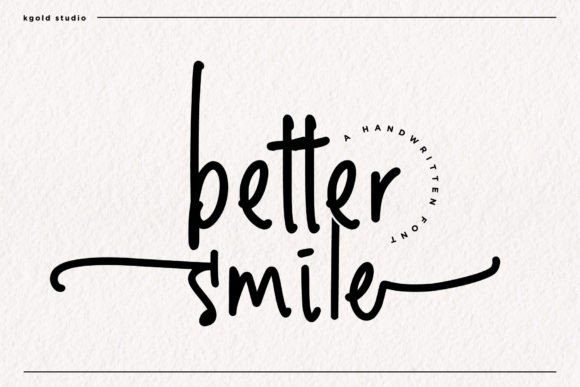
Better Smile Font: The Perfect Choice for a Relaxed Touch
In the world of typography, fonts play a crucial role in conveying the tone and personality of a design. When it comes to creating a casual and relaxed vibe, the Better Smile font is an excellent choice. This simple, quirky, and adaptable handwritten font is perfect for designers and crafters looking to add a personal touch to their creations.
What is Better Smile Font?
Better Smile is a handwritten font that exudes a carefree and informal style. Its unique and quirky characteristics make it stand out from more traditional fonts, adding a touch of personality to any design. The font’s casual vibe is perfect for projects that require a relaxed and approachable tone, such as social media graphics, blog posts, and craft projects.
Key Features of Better Smile Font
- Simple and Quirky: Better Smile’s simple yet quirky design makes it easy to read and understand, while also adding a touch of whimsy to your designs.
- Adaptable: This font is highly adaptable and can be used in a variety of design projects, from digital graphics to print materials.
- Handwritten Style: The font’s handwritten style gives it a personal and informal feel, making it perfect for designs that require a relaxed touch.
- Informal Style: Better Smile’s informal style makes it ideal for designs that require a casual and approachable tone.
Use Cases for Better Smile Font
The Better Smile font is versatile and can be used in a variety of design projects, including:
- Social Media Graphics: Add a relaxed and casual touch to your social media graphics, such as Instagram posts and Facebook updates.
- Blog Posts: Use Better Smile to add a personal touch to your blog posts and make them more engaging and readable.
- Craft Projects: This font is perfect for craft projects, such as handmade cards, gift tags, and scrapbooking.
- Branding and Packaging: Use Better Smile to create a unique and memorable brand identity for your business or product.
Benefits of Using Better Smile Font
Using the Better Smile font in your designs offers several benefits, including:
- Unique and Memorable: The font’s quirky and adaptable design makes it unique and memorable, helping your designs stand out from the crowd.
- Easy to Read: Better Smile is easy to read and understand, making it perfect for designs that require clear communication.
- Time-Saving: The font’s versatility and adaptability save you time and effort in finding the perfect font for your design project.
Tips for Using Better Smile Font
To get the most out of the Better Smile font, follow these tips:
- Use it Sparingly: Use Better Smile sparingly to add emphasis and create visual interest in your designs.
- Pair it with Other Fonts: Pair Better Smile with other fonts to create a unique and visually appealing combination.
- Experiment with Sizes and Colors: Experiment with different sizes and colors to add depth and dimension to your designs.
- Keep it Consistent: Use Better Smile consistently throughout your design project to create a cohesive and professional look.
In conclusion, the Better Smile font is a simple, quirky, and adaptable handwritten font that is perfect for designers and crafters looking to add a relaxed touch to their creations. Its informal style and casual vibe make it a go-to choice for a variety of design projects, from social media graphics to craft projects. With its unique and memorable design, ease of use, and cost-effectiveness, Better Smile is an excellent addition to any designer’s font collection.